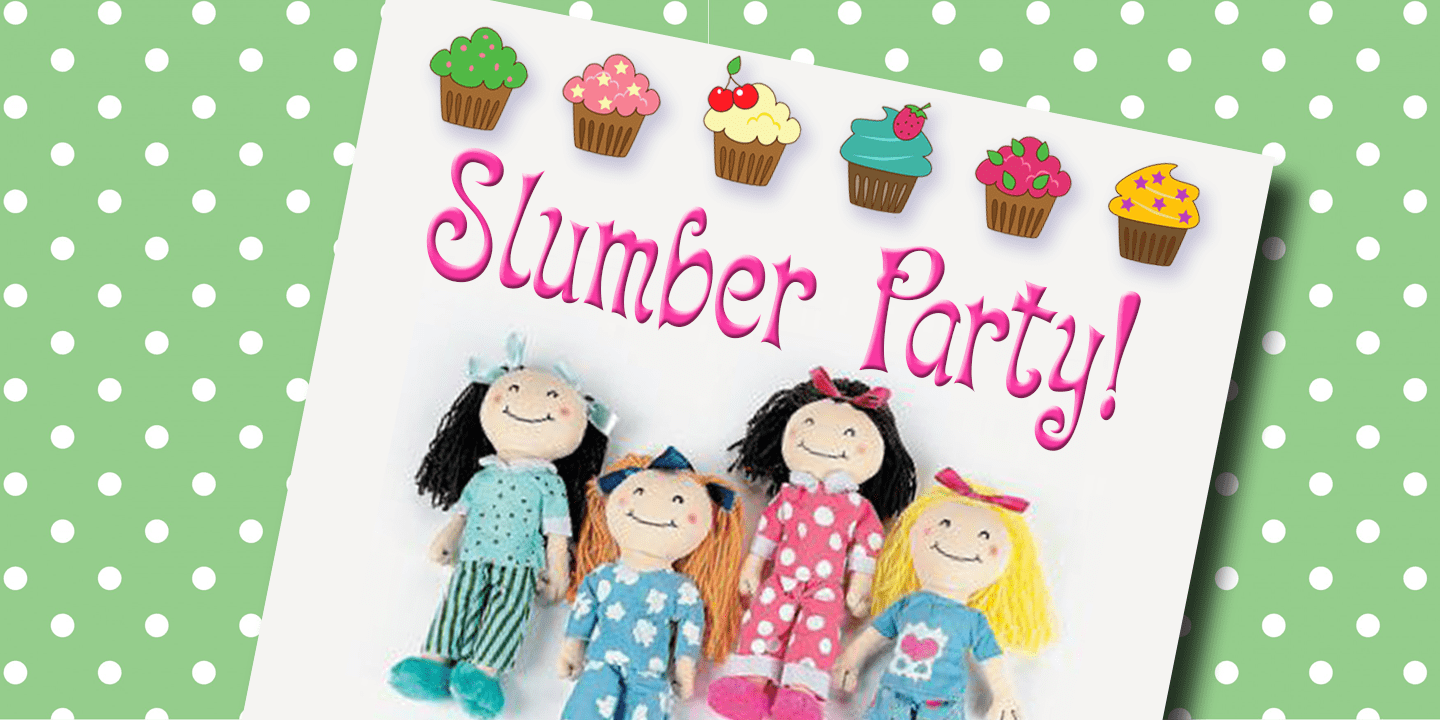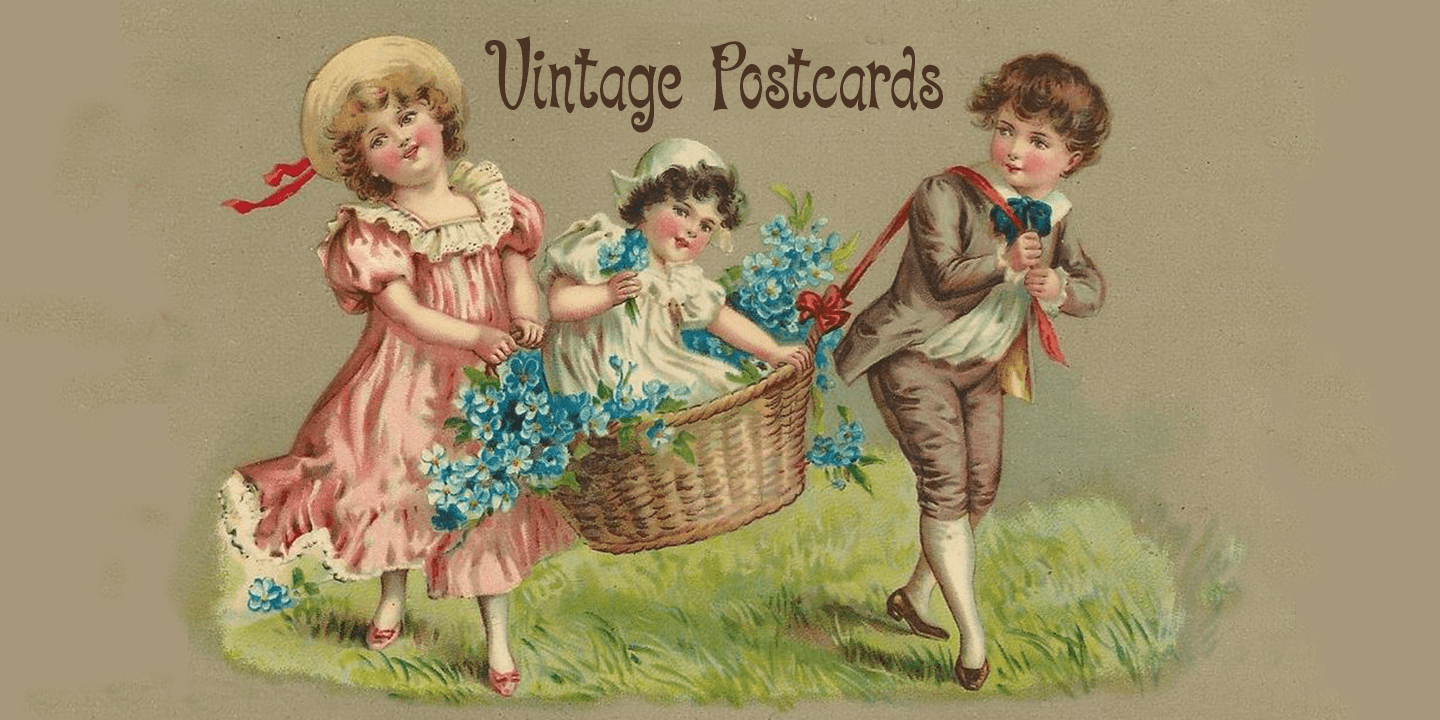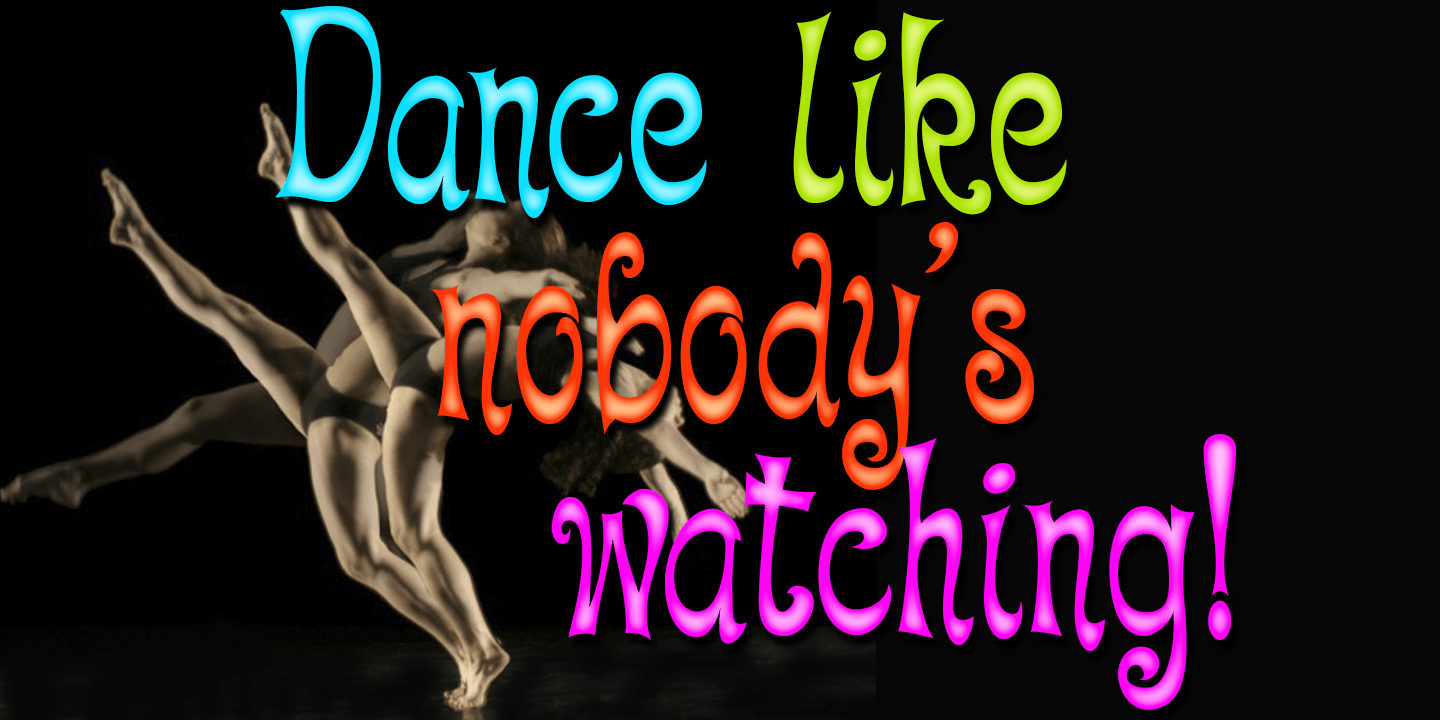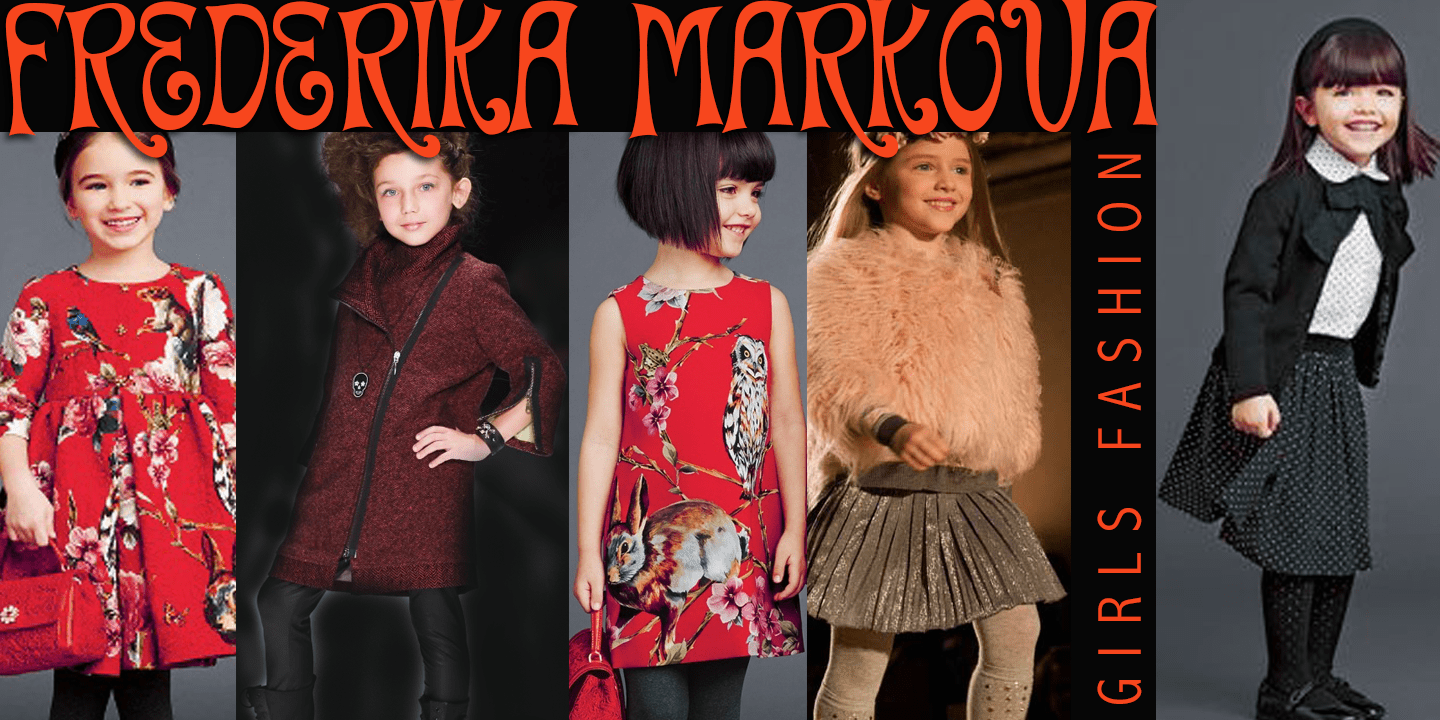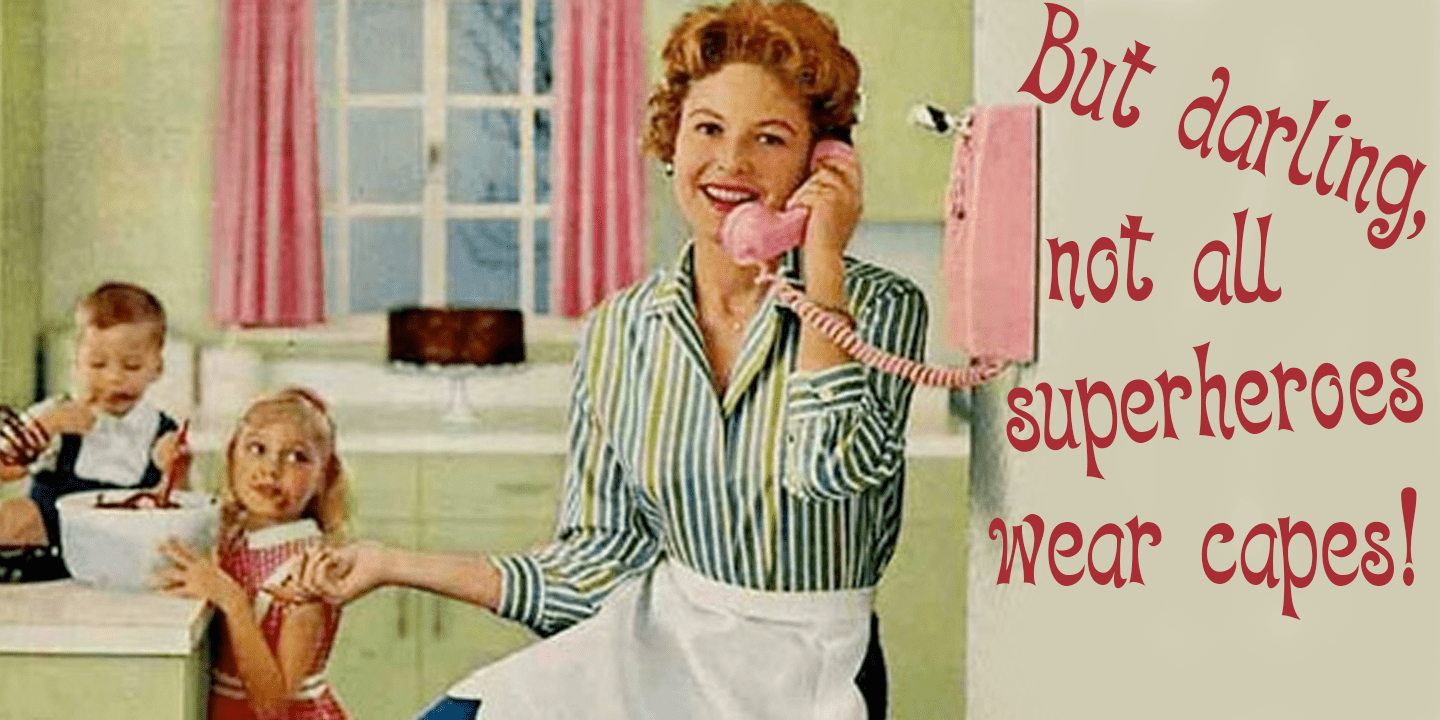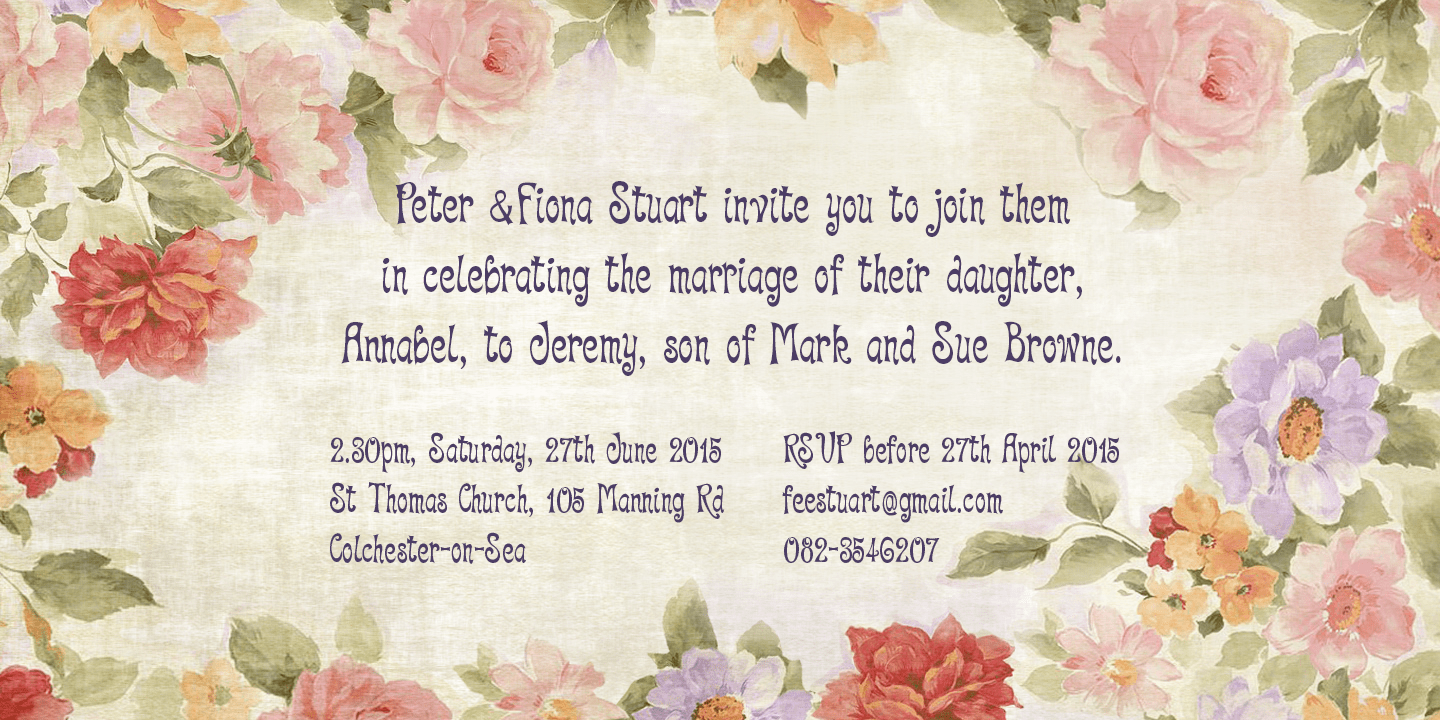
Quirky Kurlz
Quirky Kurlz is a cute, curly, vintage font. It's light hearted and funny, rounded and retro. Rounded characters, curly loops and undulating baseline work together to give a lively, look-at-me impression. Use Quirky Kurlz for branding, packaging, girls stuff, kids fashion, greeting cards, party invitations, retro postcards and advertising. Quirky Kurlz has all the features usually included in a fully professional font. Language support includes all European character sets, Greek symbols and all punctuation. Quirky Kurlz makes use of OpenType features to avoid the mechanical look caused by two identical characters side by side.